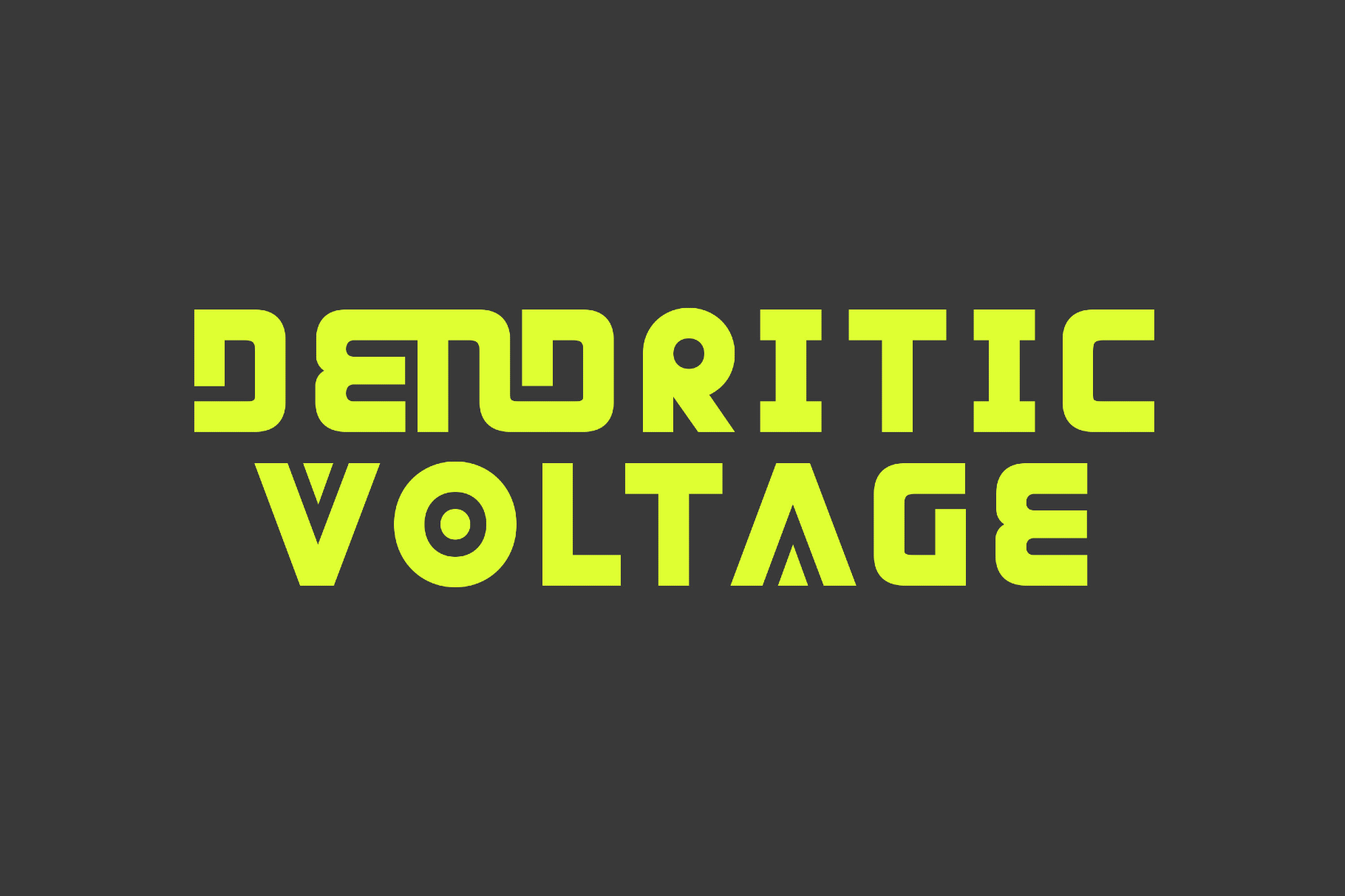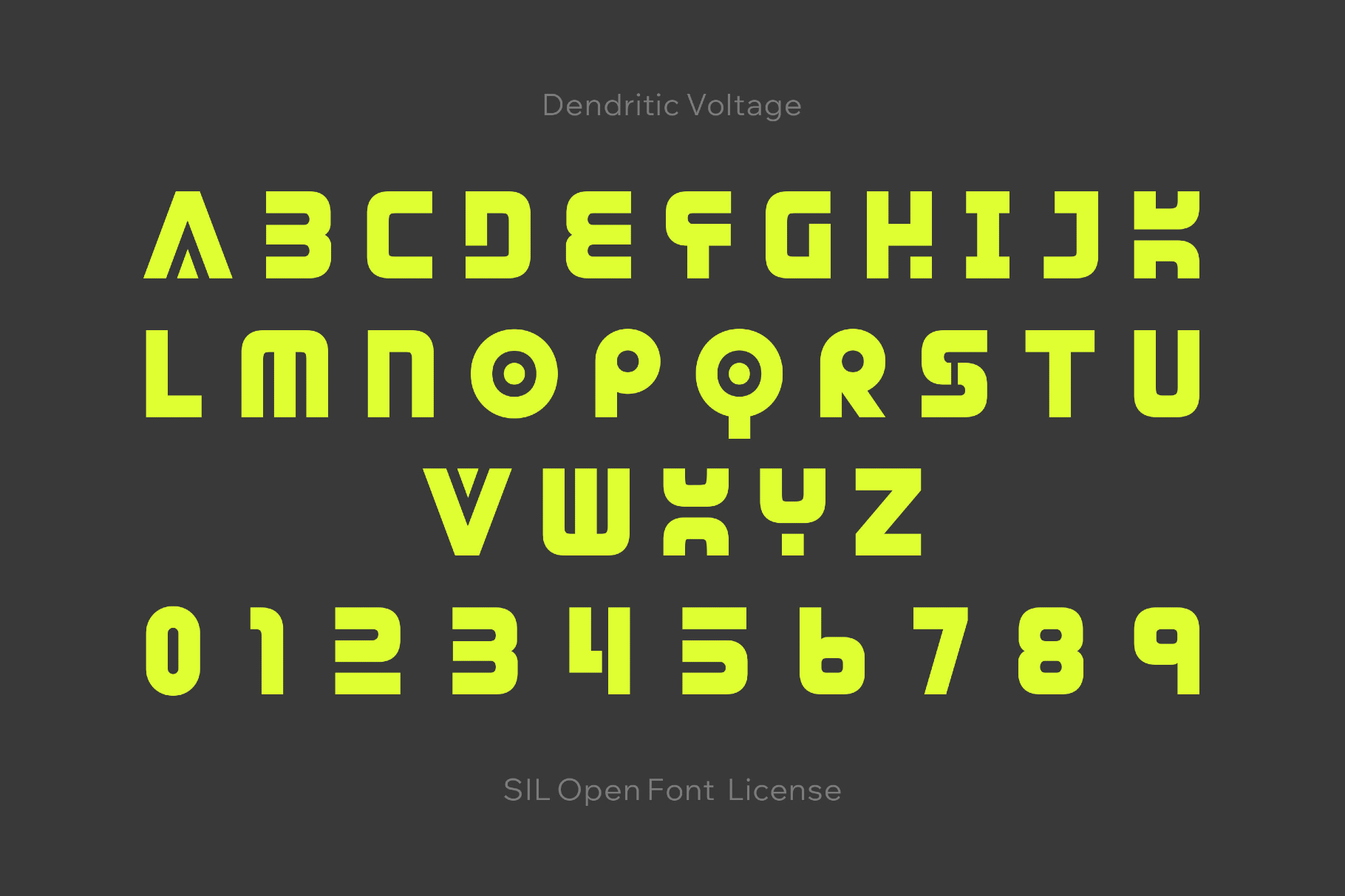
Dendritic Voltage - Sci-Fi Alien Font
Dendritic Voltage
Synthetic and slightly unstable Dendritic Voltage features intricate letterforms packed with mechanical detail, so the type has a charged, high-friction presence. This blocky space font performs well in game titles, tech posters, album sleeves, motion IDs, experimental branding, packaging, interface concepts, and screen-based visuals.